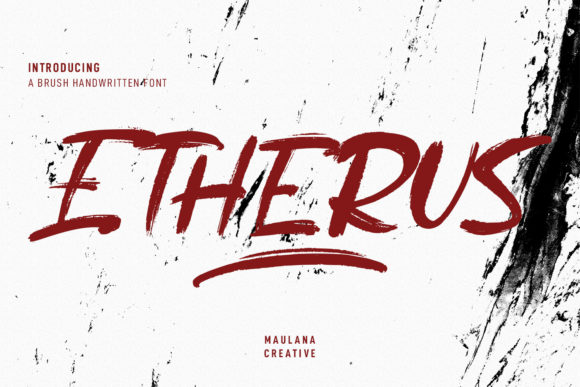
Embark on a typographic adventure with Etherus, the captivating display font that tantalizes your senses with its bold numbers. Its seductive curves and playful brush strokes create a visual feast that's sure to leave you spellbound.
Immerse yourself in the world of Etherus, where creativity knows no bounds. Unleash your imagination and let the font's elegant yet playful characters dance across your designs. Let your words take center stage, infused with the raw energy and infectious charm that only Etherus can provide.
Stand out from the ordinary and make a statement with bold numbers that command attention. Whether you're crafting logos, posters, or social media graphics, Etherus empowers you to convey your message with an impact that lingers.
Open the door to endless possibilities with Etherus, the versatile font that defies limits. Experiment with its array of ligatures and alternates, infusing your creations with a splash of uniqueness and personality. Explore the depths of your creativity and unlock designs that ignite the imagination.
Welcome to the realm of Etherus, where typography transcends boundaries. Embrace the beauty of meticulously crafted characters and let your designs shine with a touch of brilliance. Experience the allure of Etherus and transform your creative vision into a captivating reality.